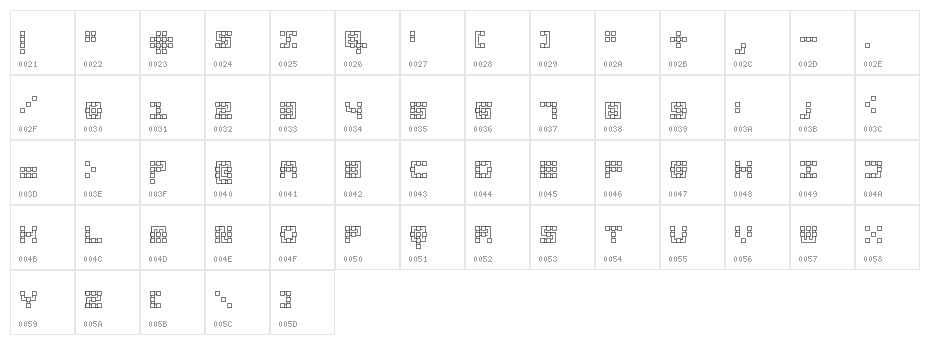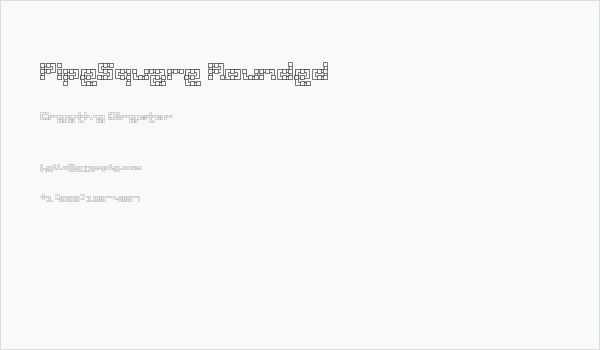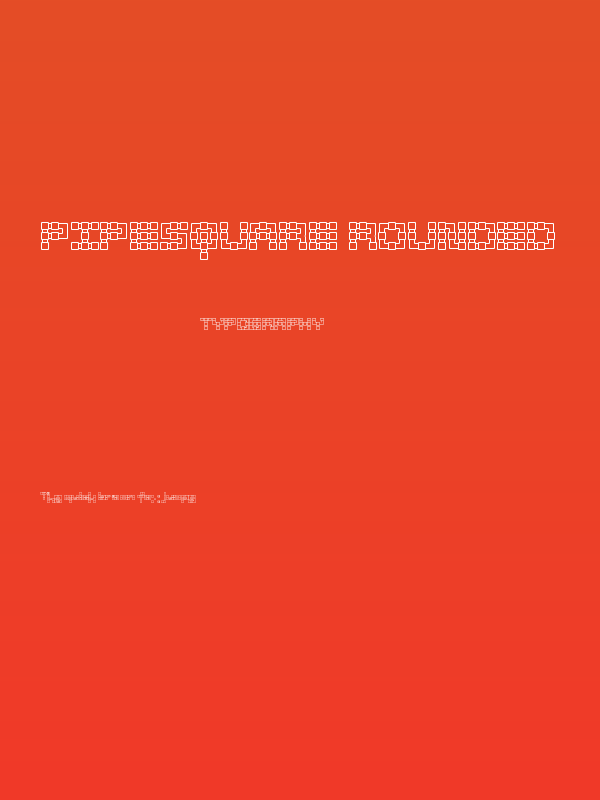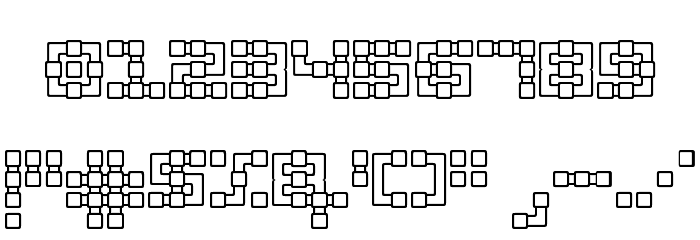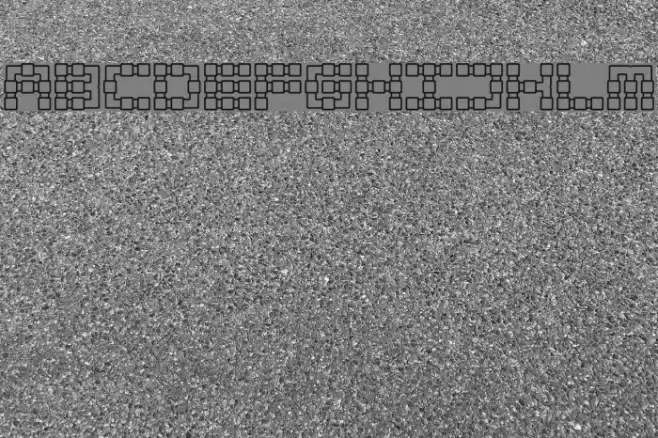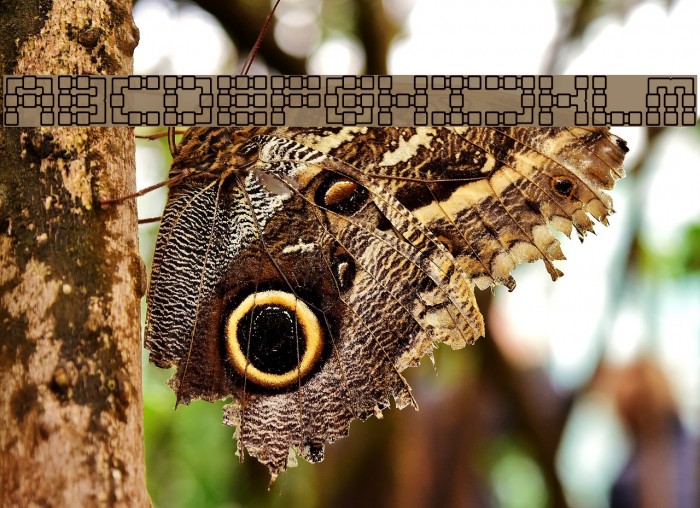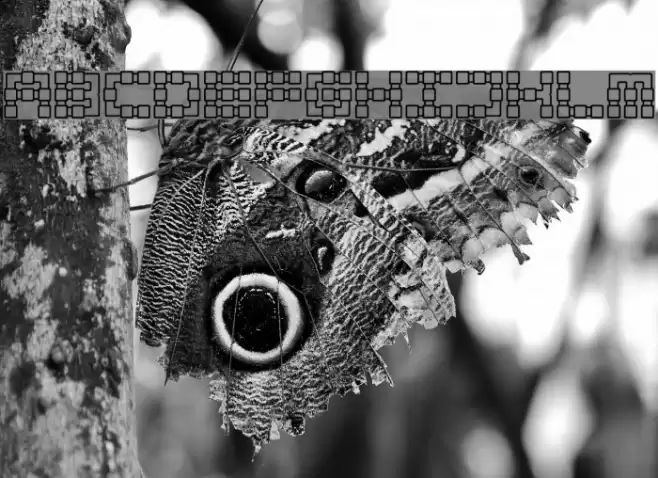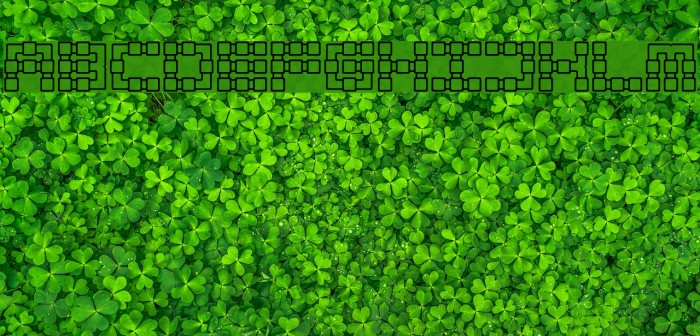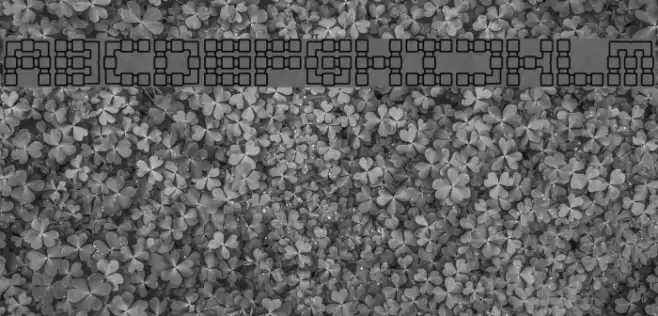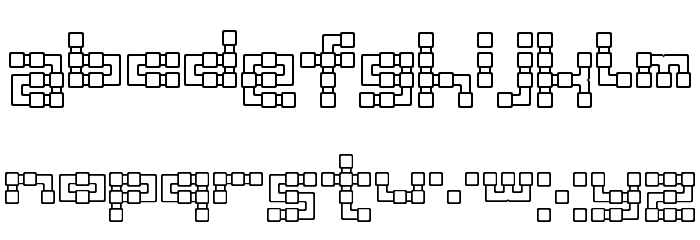
PipeSquare Rounded Font
PipeSquare Rounded Description
This font features a unique design with rounded square outlines forming each character. The geometric style is consistent across uppercase, lowercase, numbers, and special characters, creating a cohesive and modern aesthetic. The characters are constructed with a series of interconnected squares, giving a pixelated yet smooth appearance. This design choice results in a visually striking and unconventional look that stands out in digital and print media. The font's structure is both playful and futuristic, making it suitable for creative projects that require a distinctive and bold typeface.
| Use Case | Logos, Headlines, Digital Art |
| Proposed Projects | Ideal for digital art, video game graphics, tech branding, and futuristic-themed posters. |